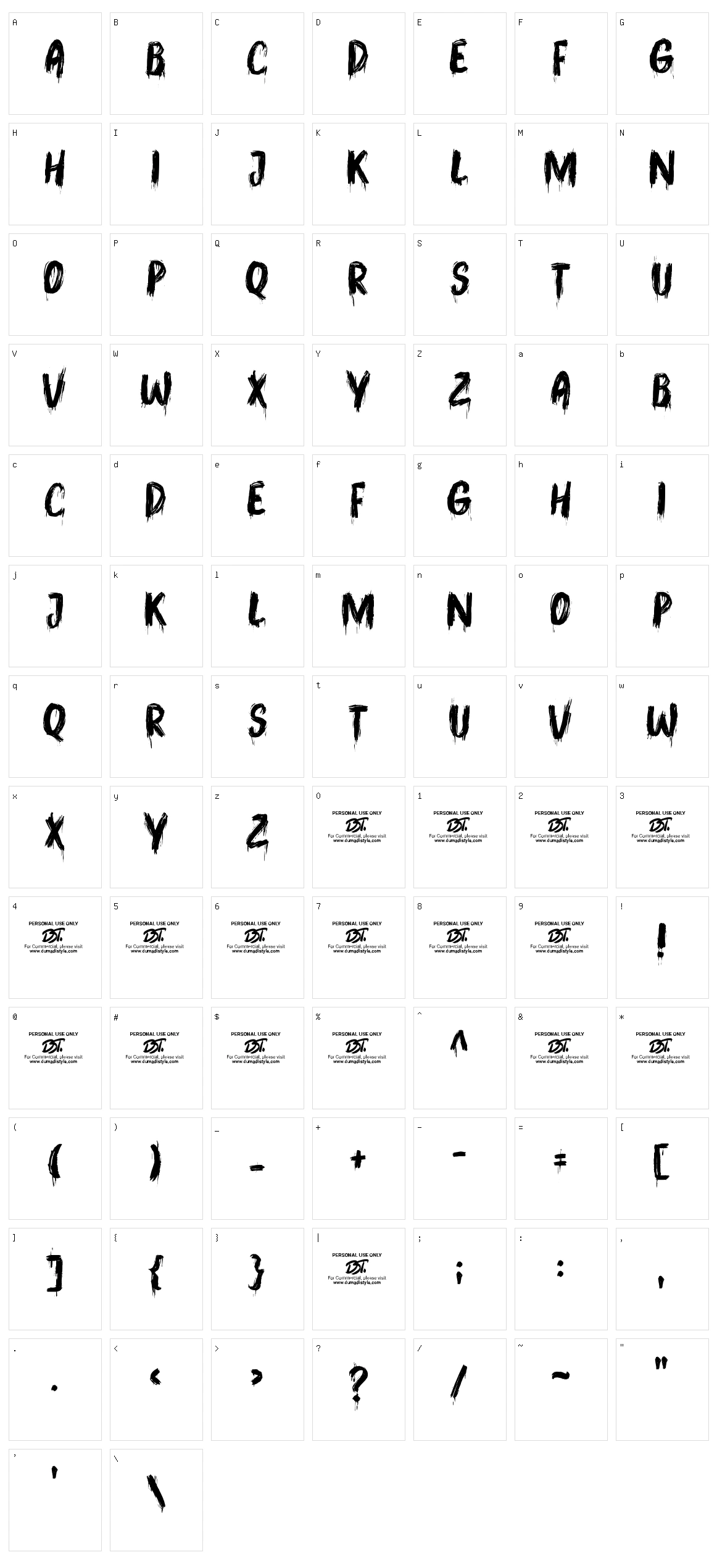
The free font Buggy Trick is carefully designed by DumadiStyle, showcasing a thoughtful balance of creativity and usability and falls under the Horror font style. When you download the ZIP file, it contains only 2806.43 KB of font files, making it lightweight and quick to download. Please review the license details below to understand permitted usage and distribution rights. If license information is not available, we recommend using this font for personal projects only or contacting the author directly for commercial usage permissions.